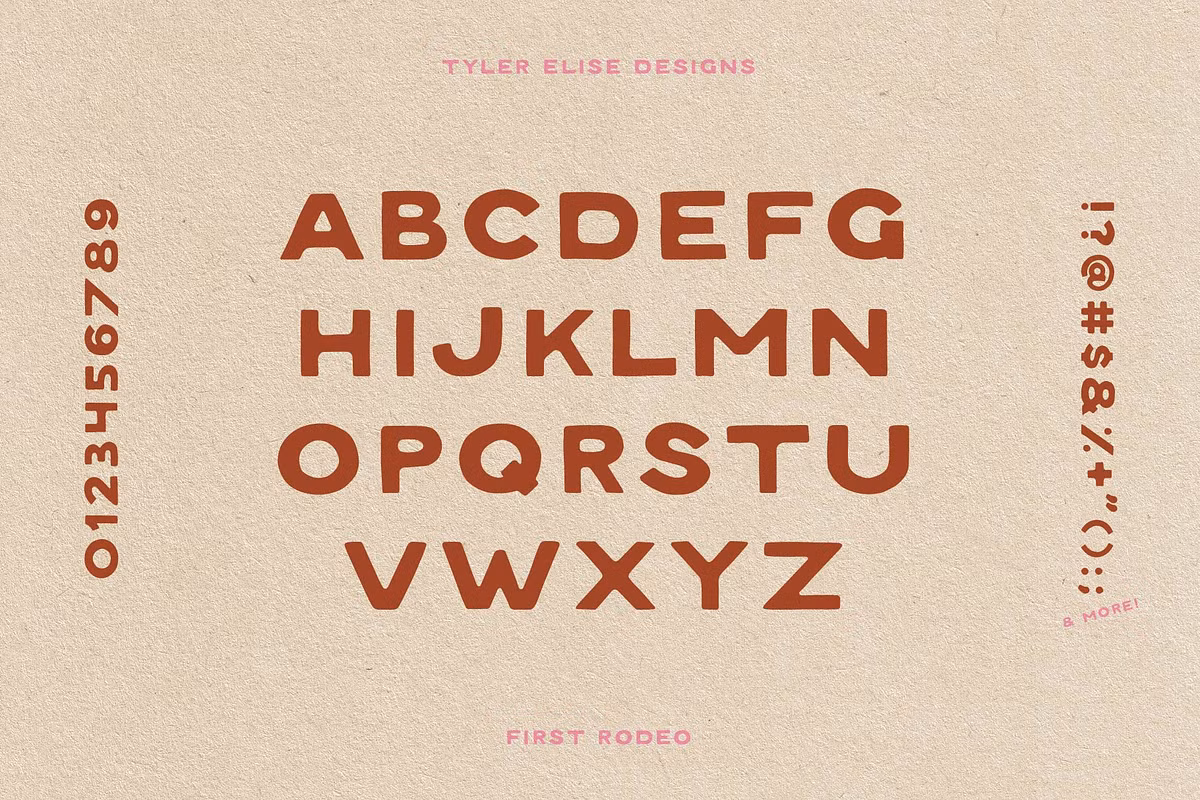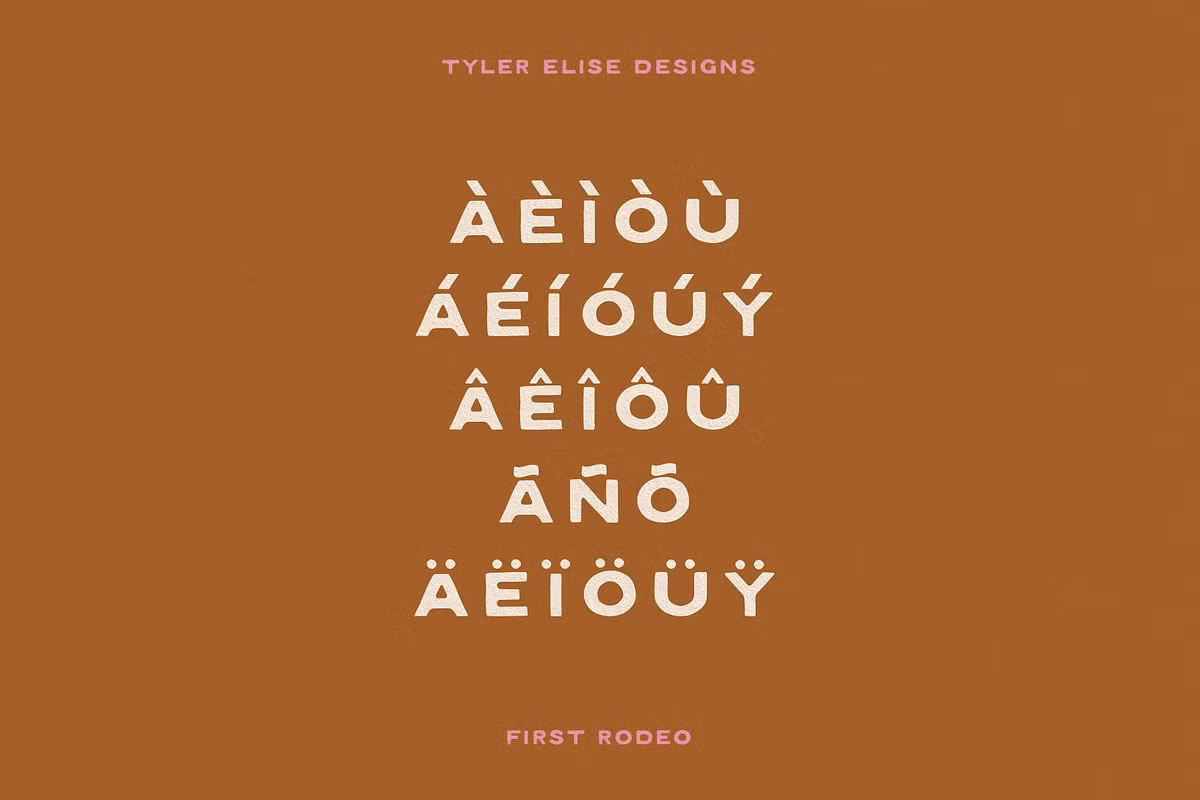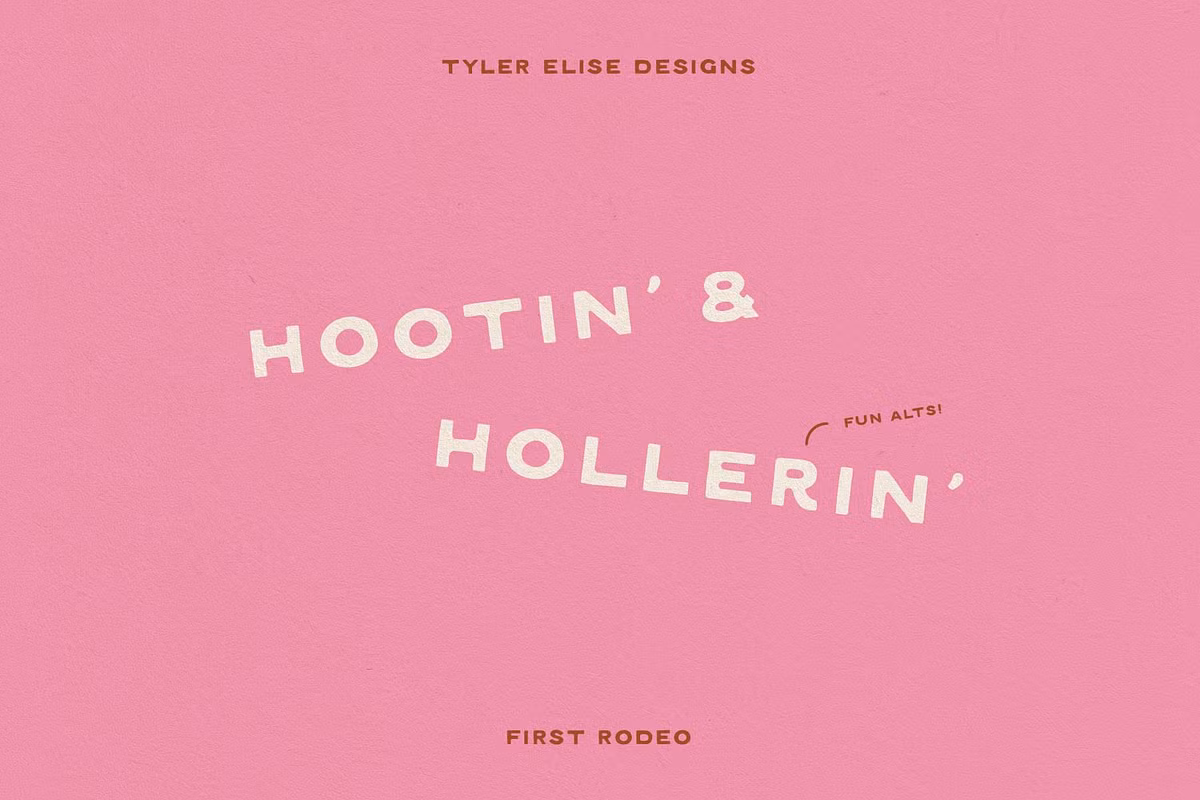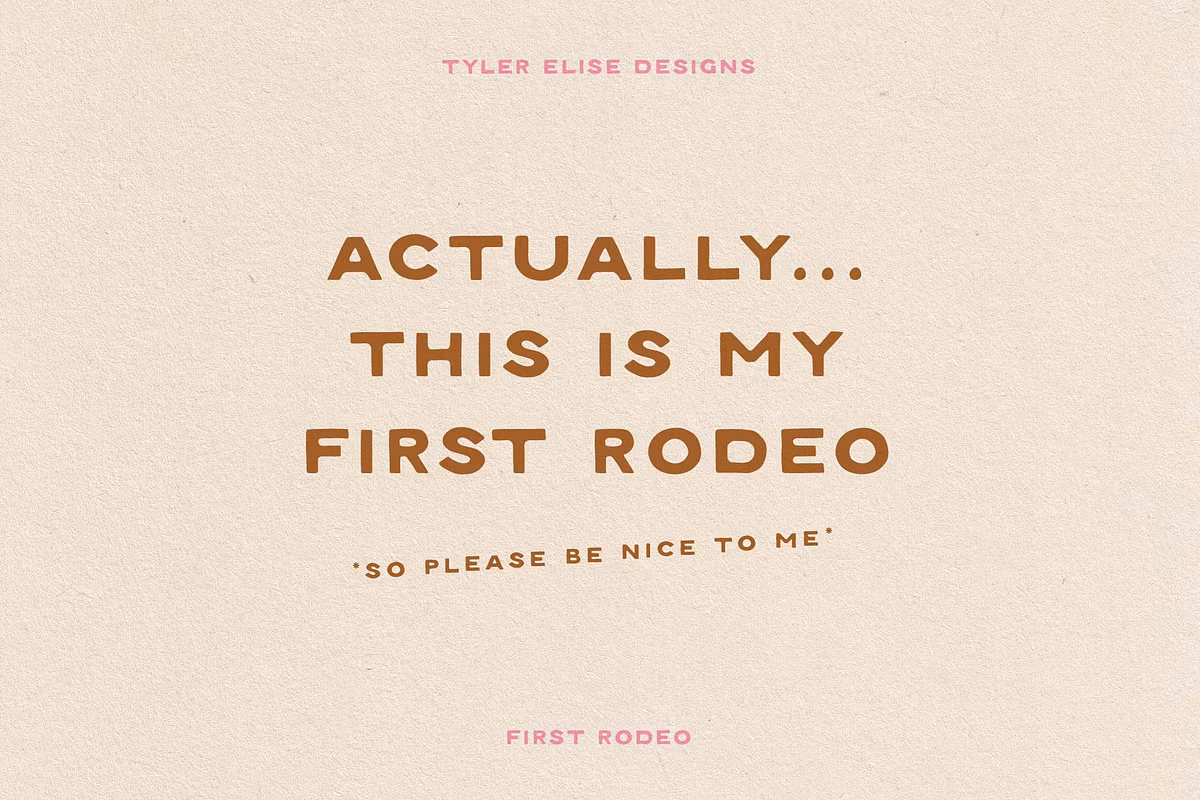
FIRST RODEO by Tyler Elise: Unique Hand-Lettered Sans Serif Font
FIRST RODEO is a really cool hand-drawn font made by Tyler Elise. It’s special because it has a one-of-a-kind texture and a little bit of quirkiness that can make any design project more interesting. If you’re making a logo, building a website, or creating ads, FIRST RODEO is a great choice because it adds a lot of personality and style to your work. Its unique look can help your designs stand out and give them a more human touch. With FIRST RODEO, you can create something that’s both fun and professional, which is perfect for grabbing people’s attention and making a lasting impression.
Design Style of FIRST RODEO
The style of FIRST RODEO is really special – it’s got a handwritten feel that makes your text feel more personal and friendly. Most sans serif fonts are all about being perfect and uniform, but FIRST RODEO is different – it’s more relaxed and fun. The little imperfections in the letters give them a sense of depth, which makes them really nice to look at. This makes your text stand out and grabs people’s attention. The overall effect is pretty unique and engaging, which is great for making your message more relatable and interesting.
The quirky features of this font are what make it so charming, giving it a unique personality that’s just right for projects that need a casual or playful feel. That’s why FIRST RODEO is a great pick for creative areas like branding, art, and crafts, where being able to express yourself is really important. It’s perfect for adding a personal touch to your work and making it stand out.
In contemporary design, where authenticity and individuality are highly valued, FIRST RODEO provides a fresh alternative to overly polished typefaces. Its design invites viewers to connect on a more personal level, making it ideal for any project that aims to stand out and resonate with the audience.
Character Sets in FIRST RODEO
The FIRST RODEO font offers a wide range of characters, making it a great choice for many different design projects. You get uppercase and lowercase letters, numbers, punctuation marks, and some special characters too. This means you can create all sorts of interesting and stylish text layouts without worrying about the font looking bad or being hard to read. With so many characters to choose from, you can really get creative and make your designs stand out. Whether you’re working on a big project or just a small one, FIRST RODEO has everything you need to make your text look great.
Using special font features like stylistic alternates and ligatures can really make a font stand out, giving designers more ways to get creative with their text layouts. This is especially helpful when making logos and branding materials, where you want a unique look that sets you apart. By adding these extra touches, you can give your design a more personalized feel that really makes it pop.
FIRST RODEO is also really versatile when it comes to languages, which makes it super useful for projects that involve people from all over the world. This means that no matter who your audience is, FIRST RODEO can help you get your point across in a way that’s still uniquely yours.
Use Cases for FIRST RODEO
The creative potential of FIRST RODEO is vast, making it suitable for a wide range of applications. Here are some notable use cases:
- Branding and Logos: FIRST RODEO’s unique texture and personality make it ideal for creating memorable logos that stand out in a crowded marketplace.
- Social Media Graphics: Use FIRST RODEO for eye-catching posts and stories that require a friendly and approachable tone, appealing to modern audiences.
- Event Invitations: Whether it’s a wedding, birthday party, or corporate event, FIRST RODEO adds a personal touch to invitations, ensuring they leave a lasting impression.
- Merchandise Design: From T-shirts to tote bags, incorporating FIRST RODEO in merchandise designs can enhance their visual appeal and make them more desirable to customers.
By utilizing FIRST RODEO in these contexts, you can create designs that not only attract attention but also communicate the intended message effectively.
Pairing Suggestions for FIRST RODEO
To get the most out of FIRST RODEO, try combining it with other fonts that bring out its special features. Here are some ideas to consider:
- Montserrat: A great font because it’s simple and modern. It looks really good with FIRST RODEO, which is more fun and playful.
- Merriweather: A serif font that offers a classic touch, Merriweather can add sophistication to your designs when paired with FIRST RODEO, striking a balance between modernity and tradition.
- Raleway: Another sans serif option, Raleway’s elegant lines can complement the quirky style of FIRST RODEO while maintaining readability in longer texts.
Experimenting with these pairings can help you achieve a cohesive and visually appealing typographic hierarchy in your projects.
With FIRST RODEO, you can create something truly special and make your designs stand out. Whether you’re looking to add a bit of fun or a lot of personality, this font is a great choice. It’s perfect for designers who want to think outside the box and create something unique. So, go ahead and give FIRST RODEO a try – you won’t be disappointed.